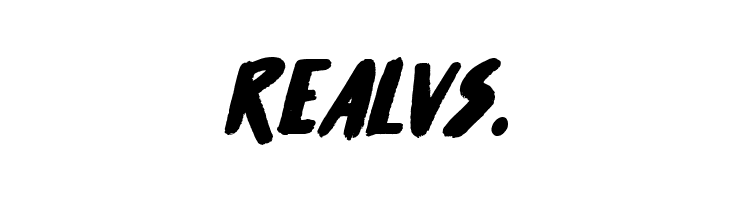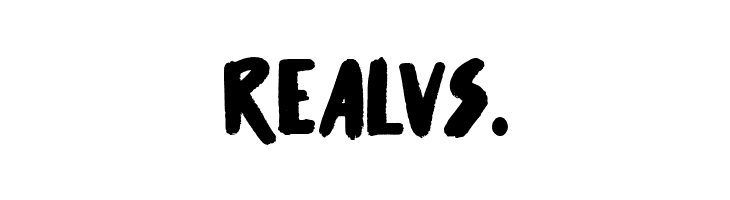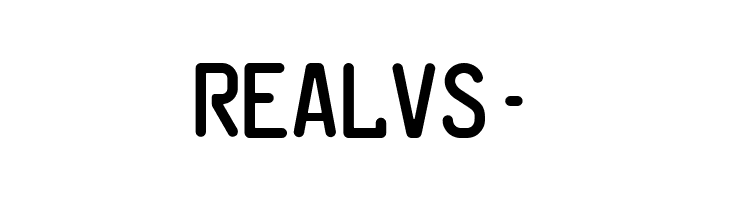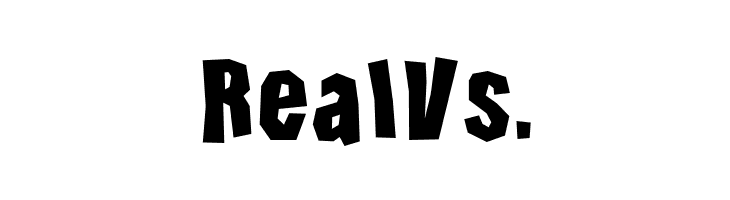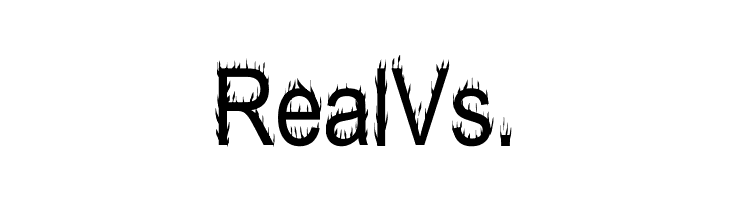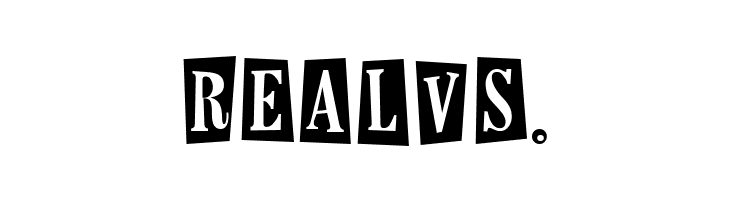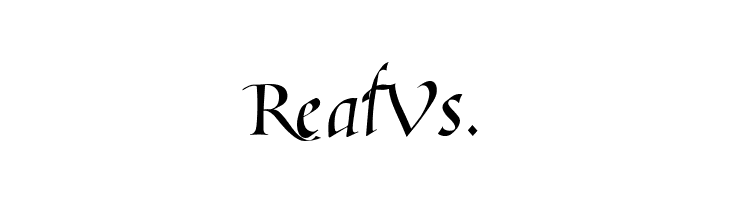
A decorative font with whimsical horse illustrations integrated into each character.
A bold, brush-style italic font with dynamic strokes and a handcrafted appearance.
A playful, rounded font with a retro vibe and consistent stroke width.
A decorative font with comic-style illustrations for each character.
An abstract, artistic font with intricate line drawings and geometric patterns.
A bold, hand-painted style font with an italicized, energetic appearance.
A bold, brush script font with a dynamic, hand-painted style.
A whimsical, vintage-style font with bold serifs and playful character shapes.
Illustrative dingbat font with household-themed pictograms.
Icon-based decorative font with housing and lifestyle motifs.
Automotive-themed pictorial display font using car parts and tools for each character.
A whimsical, illustrative font with fish-shaped characters.
A bold, geometric font with angular edges and a modern, futuristic style.
A flowing, elegant script font with intricate loops and swashes.
A modern, rounded font with consistent stroke width and approachable design.
A whimsical, hand-drawn font with human-like features and playful design.
Abstract, human-like silhouettes form each character in a non-traditional, illustrative style.
Hand-drawn, illustrative font featuring human figures and scenes.
A whimsical, robot-themed decorative display font with high contrast and unique character illustrations.
Cartoonish, hand-drawn font made of expressive human head illustrations.
An anatomical dingbat font with detailed human body illustrations.
A classic, elegant serif font with a humanistic, calligraphic influence.
An elegant humanistic cursive font with dynamic serifs and flowing letterforms.
Hand-drawn font featuring expressive human portraits as characters.
Decorative font with illustrated human portraits in a comic style.
A bold, geometric font with a futuristic and digital aesthetic.
A whimsical and eclectic collection of bold, imaginative pictorial symbols.
Cartoon-style illustrative font with each glyph as a unique scene.
A display font made from human silhouette illustrations.